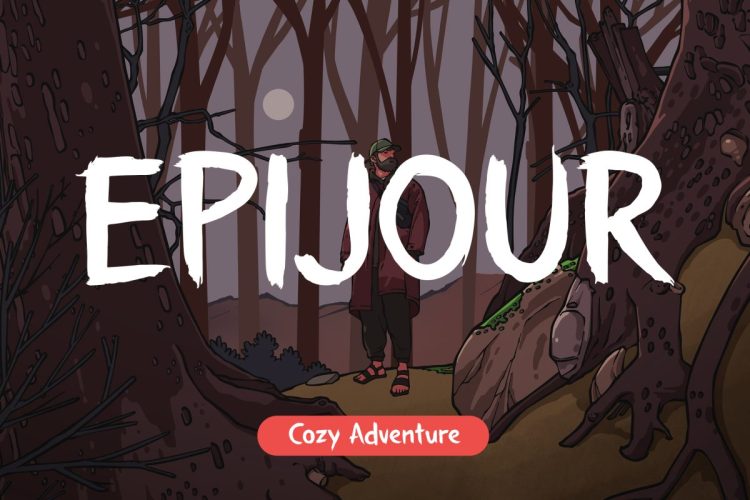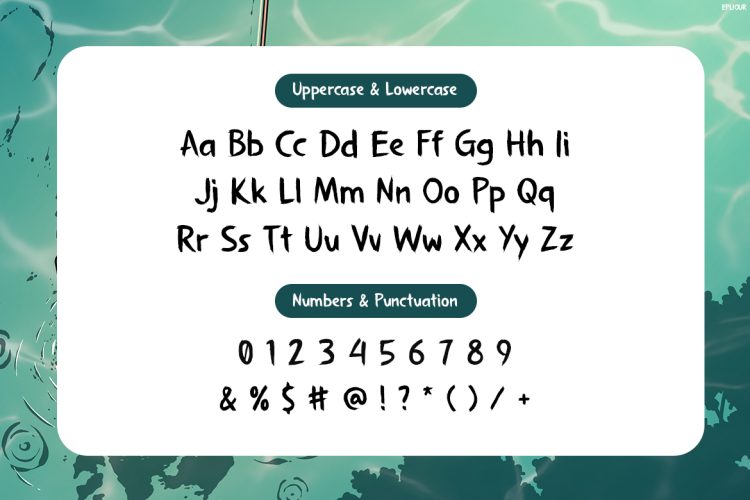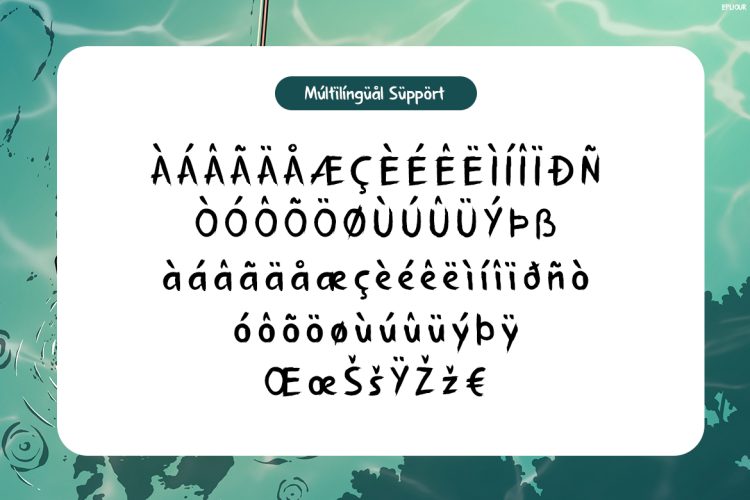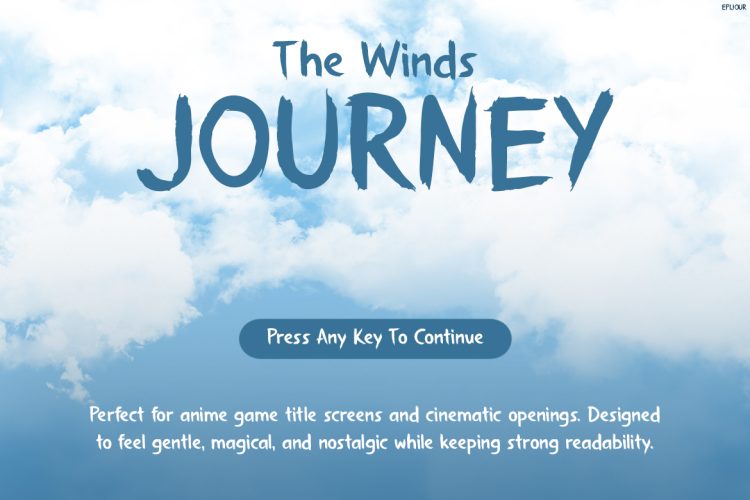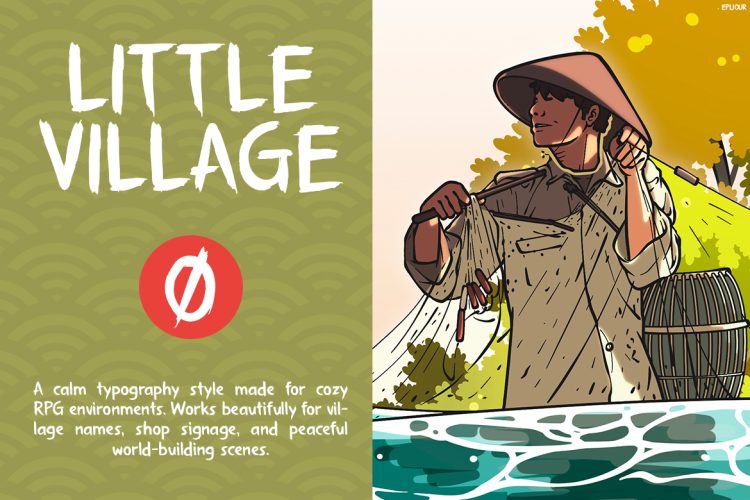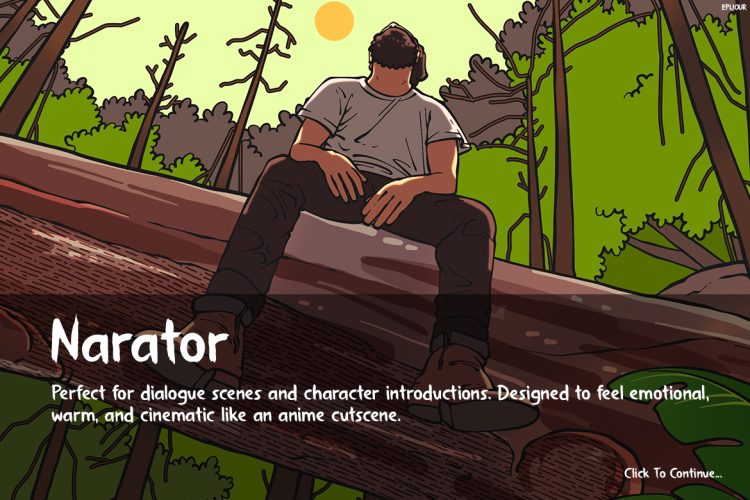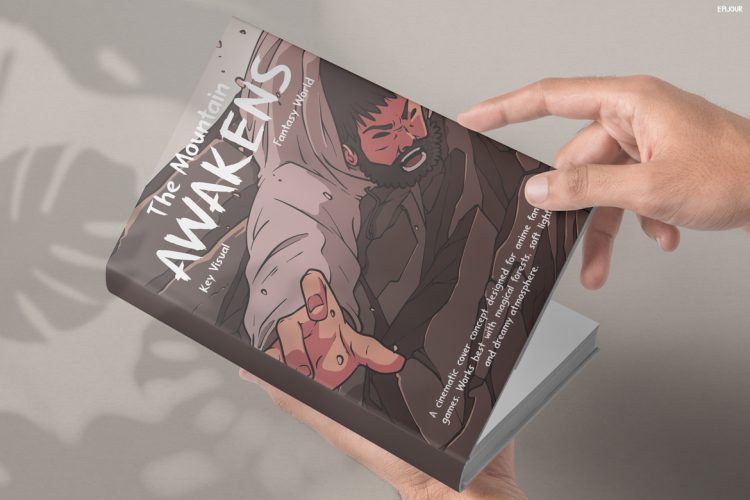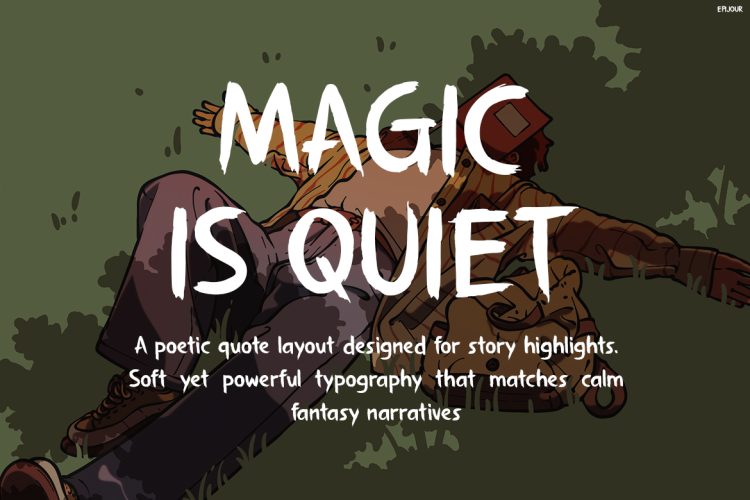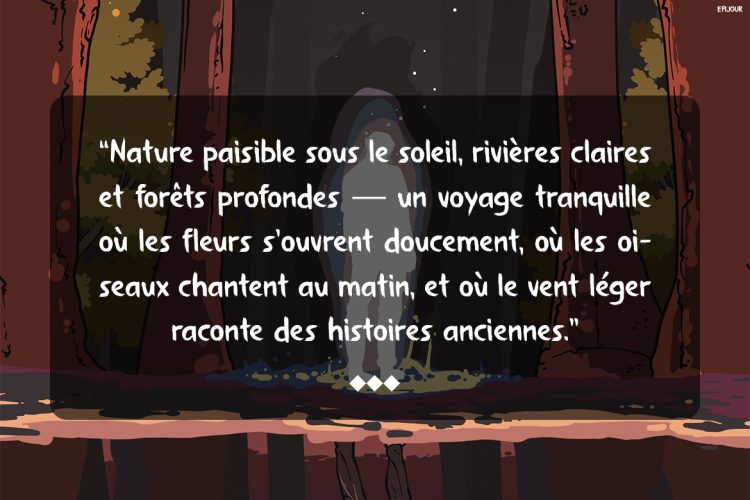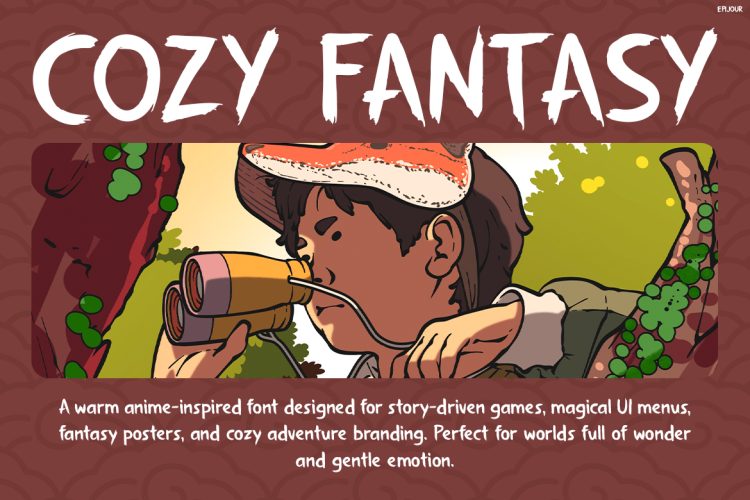
Epijour โ Cozy Fantasy Font with Storytelling Soul
Gaming Font Epijour captures a warm, hand-crafted fantasy vibe that feels alive in every letter. Its organic strokes, playful rhythm, and soft-edged shapes create a natural storytelling flowโmaking text feel personal, magical, and easy to read. Moreover, the slightly imperfect style adds charm and authenticity, while at the same time maintaining clarity across titles, quotes, and UI elements. As a result, it becomes the perfect bridge between aesthetic beauty and functional design. In addition, with multilingual support for 67 languages, Epijour opens your creative world to a global audience.
A Font Built for Cozy Adventures
Epijour shines in narrative-driven visuals where emotion and atmosphere matter most. For example, it works beautifully on story quotes, game menus, book covers, and cozy fantasy posters. Furthermore, its friendly tone makes every word feel inviting and immersive. Consequently, your designs gain a unique personality that stands out without trying too hard. In other words, this font helps you tell stories visuallyโsoft, magical, and memorable.
Who Should Use This?
Therefore, Epijour is ideal for game developers, indie creators, illustrators, and storytellers. Additionally, it fits perfectly for authors, content creators, and brands focused on cozy, fantasy, or narrative themes. Whether youโre designing RPG dialogue screens, childrenโs books, or aesthetic social media content, this font adapts effortlessly. Ultimately, it gives your project a heartfelt and magical identity.